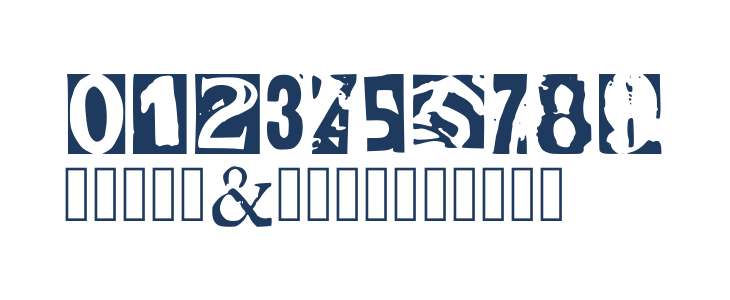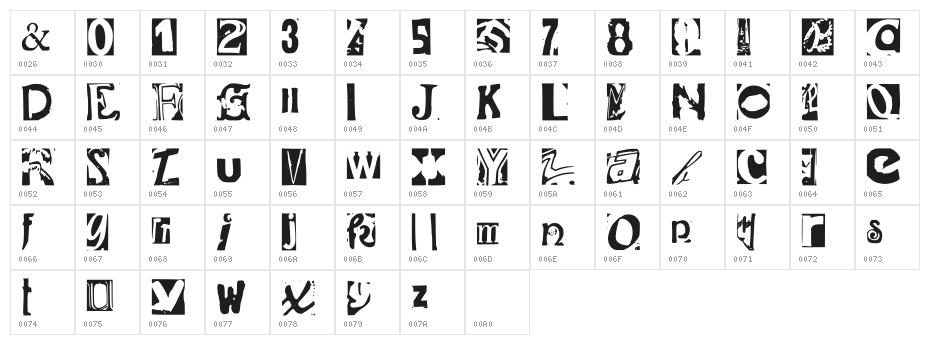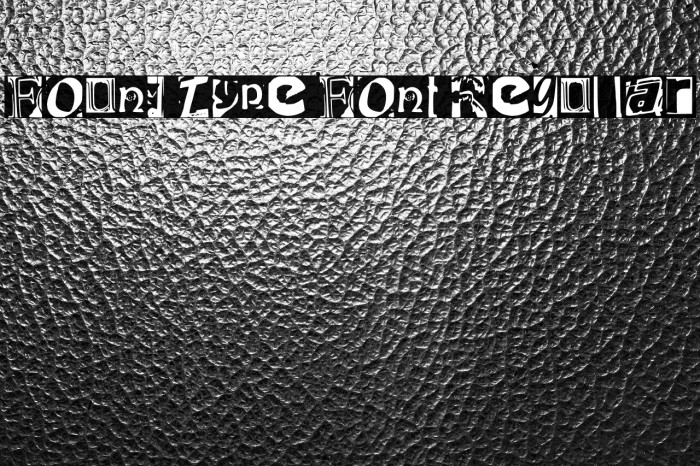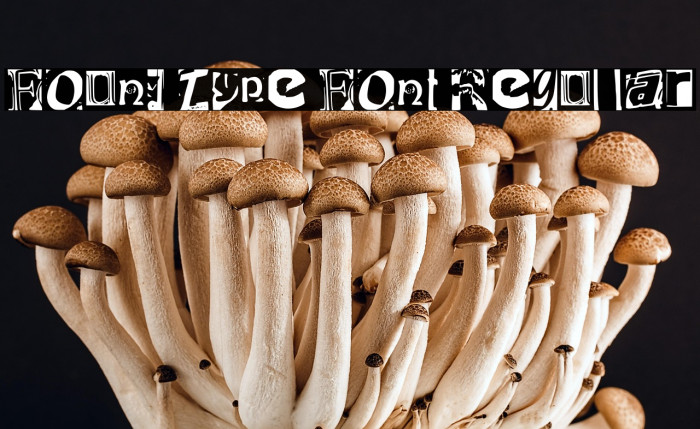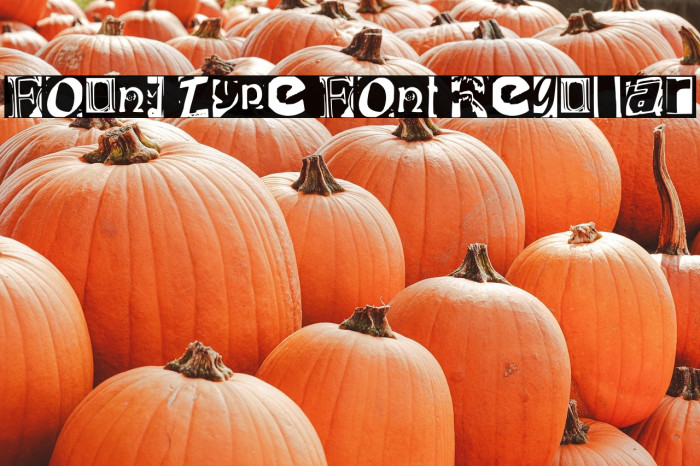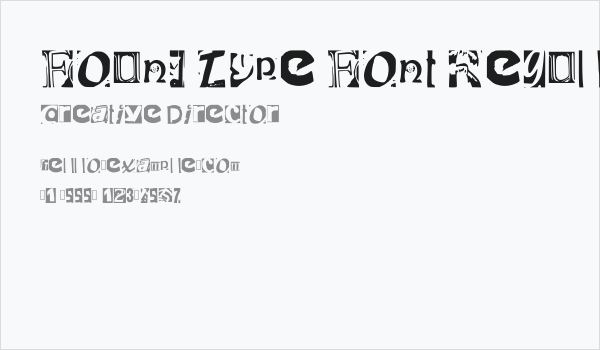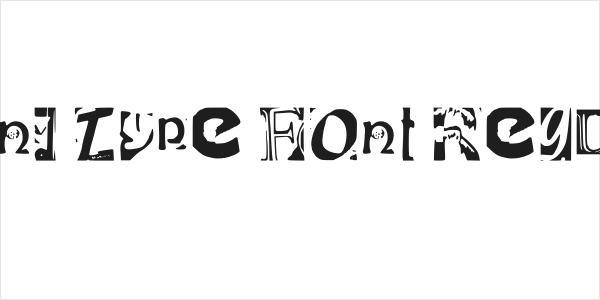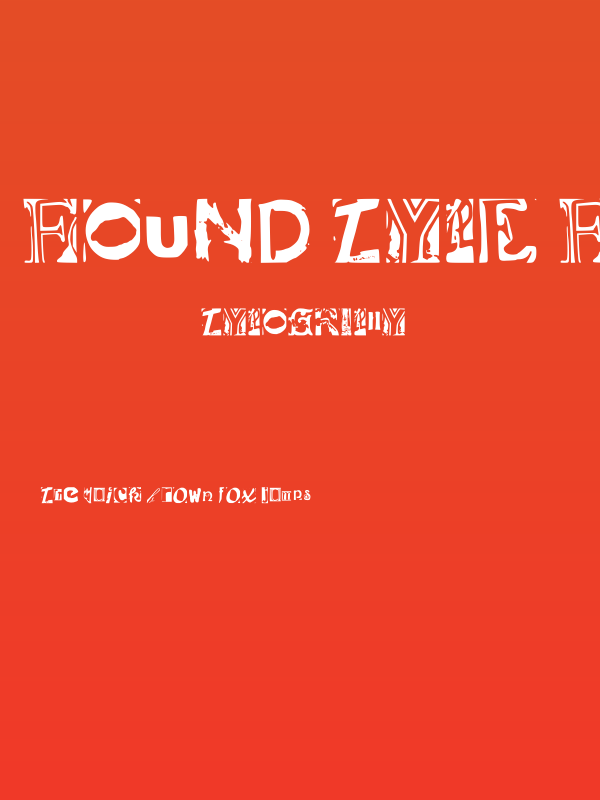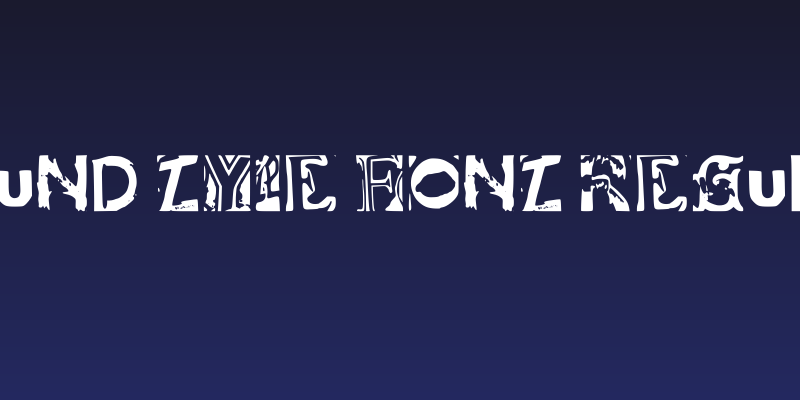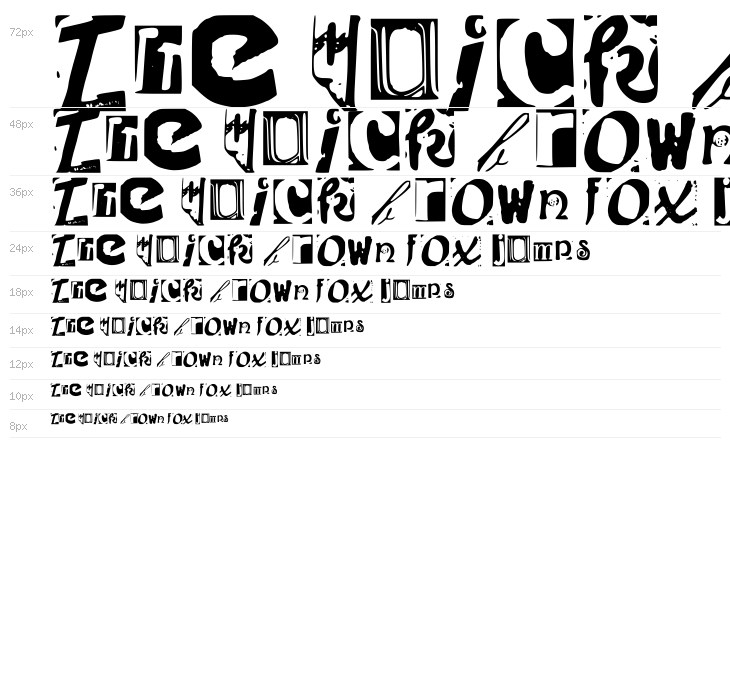
Found Type Font Regular Font
Found Type Font Regular Description
This font is a highly decorative and eclectic typeface, featuring a diverse array of styles within each character. Each letter and number is uniquely designed, incorporating abstract and artistic elements that create a visually striking appearance. The characters are a mix of bold and intricate patterns, with some letters appearing distressed or textured. This font is not uniform, as each character seems to have its own distinct personality, making it ideal for creative and artistic projects that require a standout typeface.
| Use Case | Logos, Posters, Artistic projects |
| Proposed Projects | Ideal for artistic projects, posters, album covers, and any design work that requires a bold and unique typeface. |